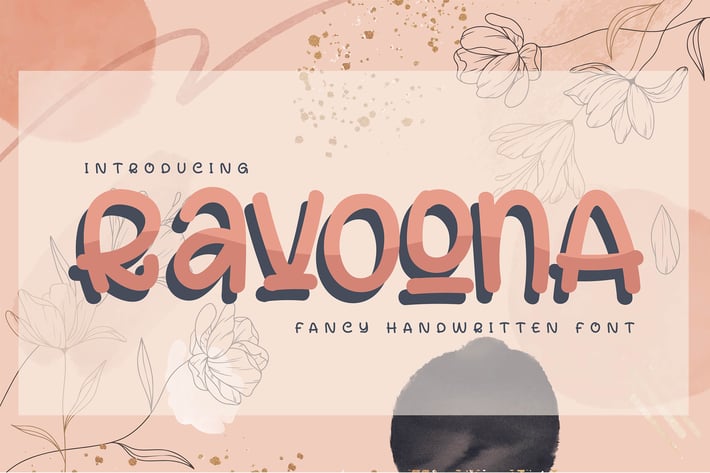
Ravoona | Fancy Handwritten Font
Ravoona | Fancy Handwritten Font with a calligraphy style, So beautiful on invitation like greeting cards, branding materials, business cards, quotes, posters, and more!